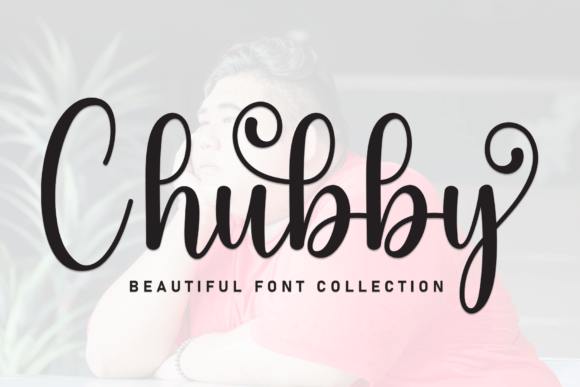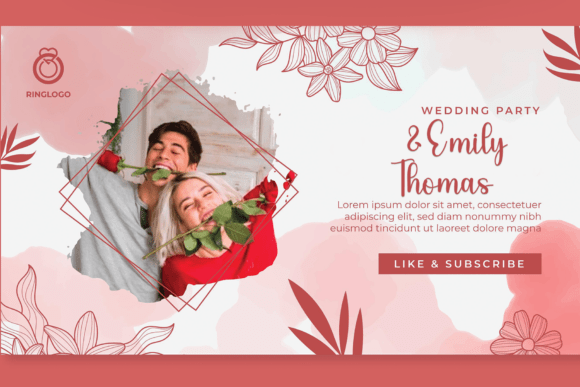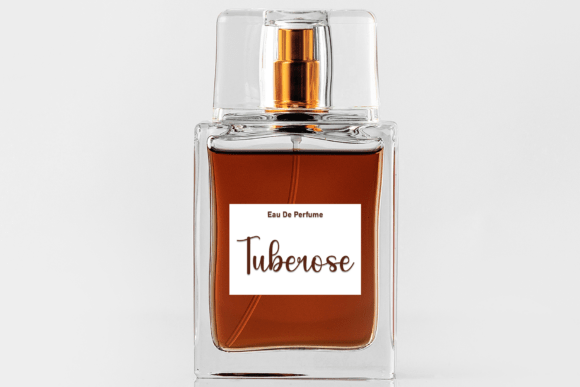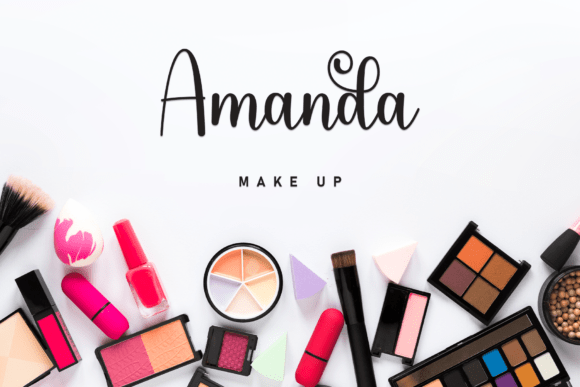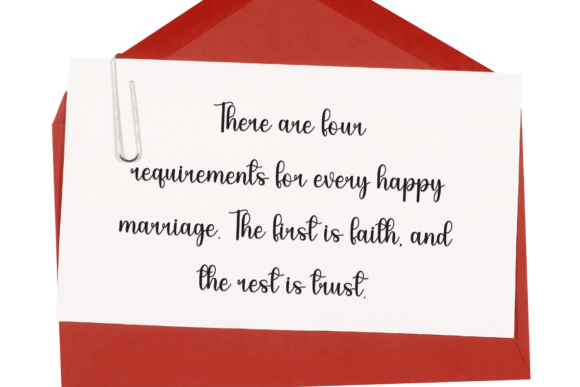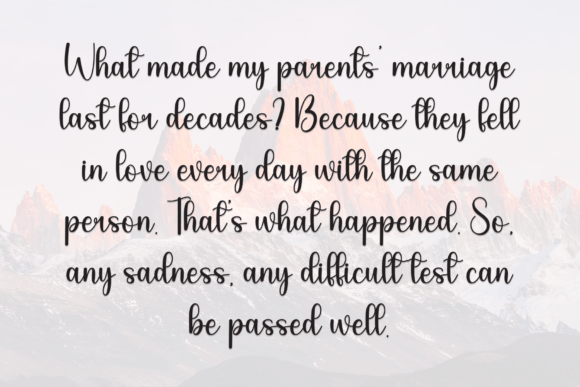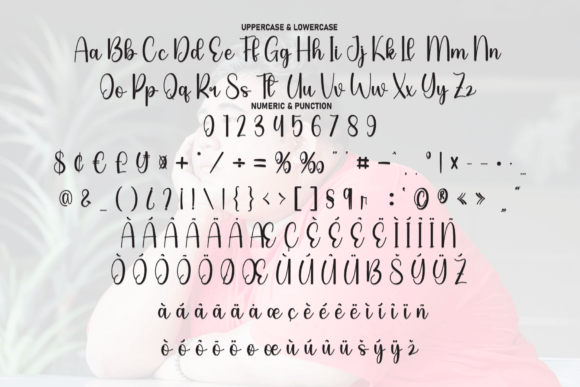
Discover the Delight of Chubby Font
As designers, we’ve all been there – staring at a blank canvas, desperate for that perfect font to bring our creative vision to life. For me, it’s the moment when the words start flowing, and the typeface begins to tell a story. It’s a feeling that’s hard to put into words, but one thing’s for sure: the right font can make all the difference. That’s why I’m excited to share with you one of my favorite discoveries – the Chubby Font.
This lovely handwritten script font is more than just a pretty face; it’s a versatile tool that adds a soft, personal touch to any project. Whether you’re creating invitations, branding, or seasonal designs, Chubby Font radiates fresh elegance and delicate charm. Its flowing strokes and graceful curves evoke a sense of renewal, making it a valuable addition to any designer’s toolkit.
Key Features of Chubby Font
- Unique Characteristics: The font features a distinctive, rounded design with varying line widths, creating a playful and friendly atmosphere.
- Style Variations: Chubby Font includes several style variations, such as Regular, Bold, Italic, and Bold Italic, allowing designers to achieve the desired level of emphasis.
Chubby Font Review
I’ve had the chance to work with the “Chubby Font” and I must say it’s an interesting choice for designers. Here are my honest thoughts.
- Unique style: The Chubby Font stands out with its distinctive rounded shape, making it perfect for adding a touch of whimsy to your designs.
- Readability: Despite its playful nature, the font remains legible even at smaller font sizes.
- Limited font sizes: While the font looks great at larger sizes, it can become quite chunky at smaller sizes, which may not be ideal for certain applications.
- Limited character set: The font’s character set is not as extensive as some other fonts, which may cause issues for designers working with non-English text.
Overall, the Chubby Font is a fun and quirky addition to any designer’s toolkit. While it may have some limitations, its unique style and readability make it a great choice for certain projects. I’d recommend using it for applications where you want to add a playful touch, such as children’s books, advertising, or social media graphics.
Chubby Font: A Practical Application Guide
The Chubby Font is ideal for use in creative typography, headings, and titles. It’s also great for adding a playful touch to your designs. Some common use cases include:
- Designing children’s books or educational materials
- Creating playful marketing materials or social media graphics
- Adding a whimsical touch to your website or blog
Yes, Chubby Font supports Unicode characters, including accented letters, ligatures, and special characters. This allows you to typeset text in multiple languages and use the font in a variety of design contexts. However, please note that some characters may not display correctly in all operating systems or design software.